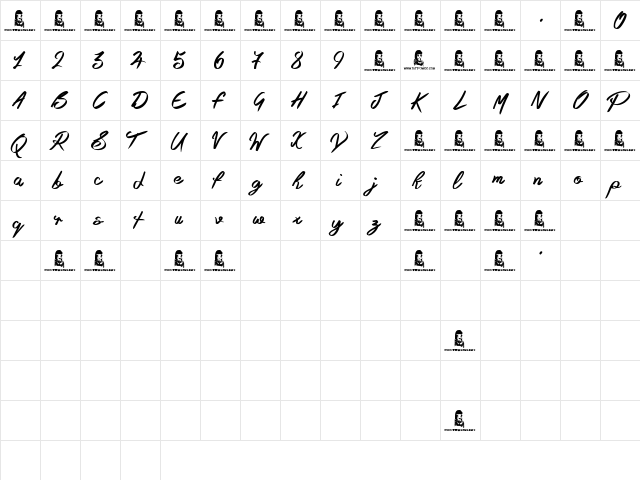
Yellow Rose Regular
| Foundry | Jonathan S. Harris |
| Designer | Jonathan Stephen Harris |
Design Context for Yellow Rose Typeface
Yellow Rose is a composed and adaptable typeface that performs quietly and consistently across a wide range of design contexts.